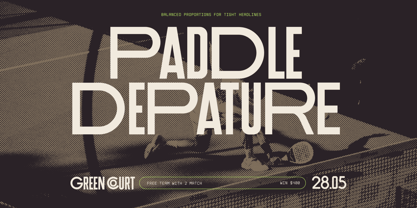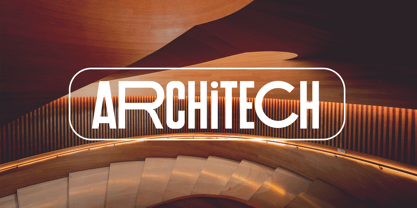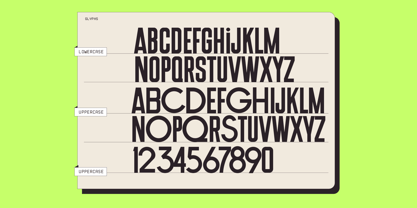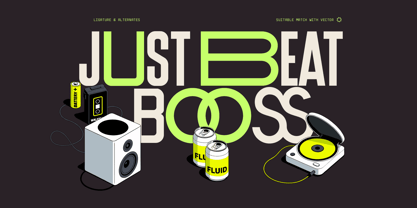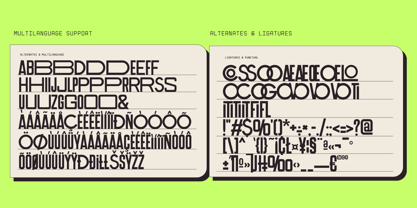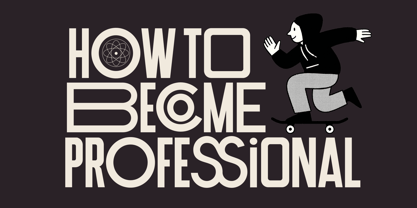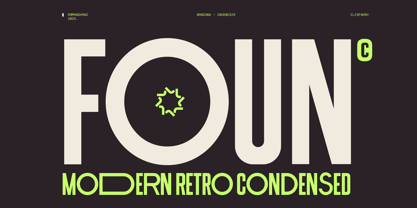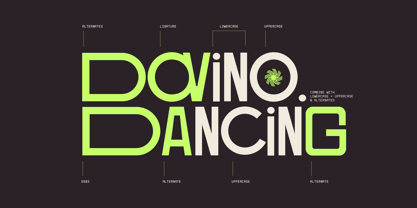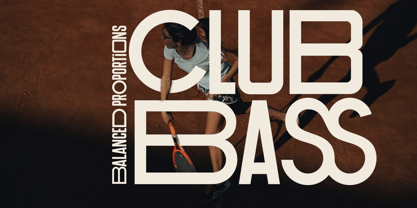
Fd Foun
by Fortunes Co
The Fd Foun Font Family was designed by Ramandhani Nugraha and published by Fortunes Co. Fd Foun contains 1 styles. More about this family
Foun is a modern condensed type design with a retro twist, perfect for projects that need a bold, stylish, and eye-catching look. The layout combines geometric precision with neon futuristic accents, delivering a versatile and highly impactful aesthetic. Step into a world where retro nostalgia meets futuristic minimalism. Foun is a condensed type design crafted to capture the bold spirit of the past and reimagine it for today’s creative landscape. With oversized lettering, sharp geometric details, and a striking balance of light and heavy strokes, this design radiates confidence and timeless cool.